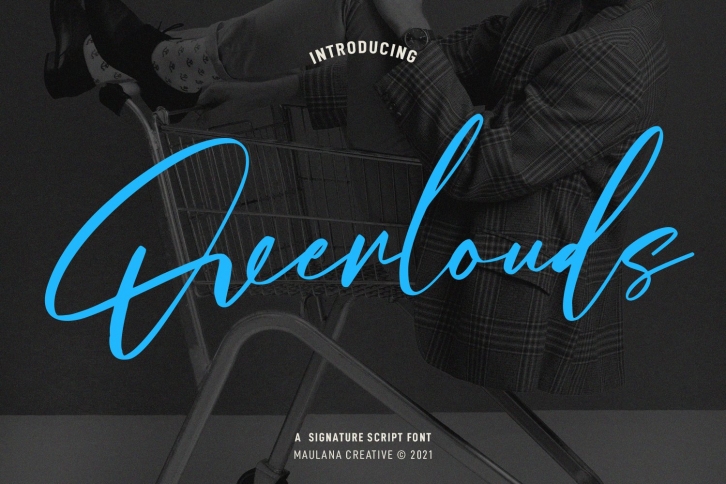
Overlouds Signature Brush is a trendy and unique font with an authentic style. It was designed by Maulana Creative and it's a great choice for creative people who need such a font. It was released on October 25, 2021 and the file size is 7.6 MB. Overlouds Signature Brush will add an organic vibe to any design idea!